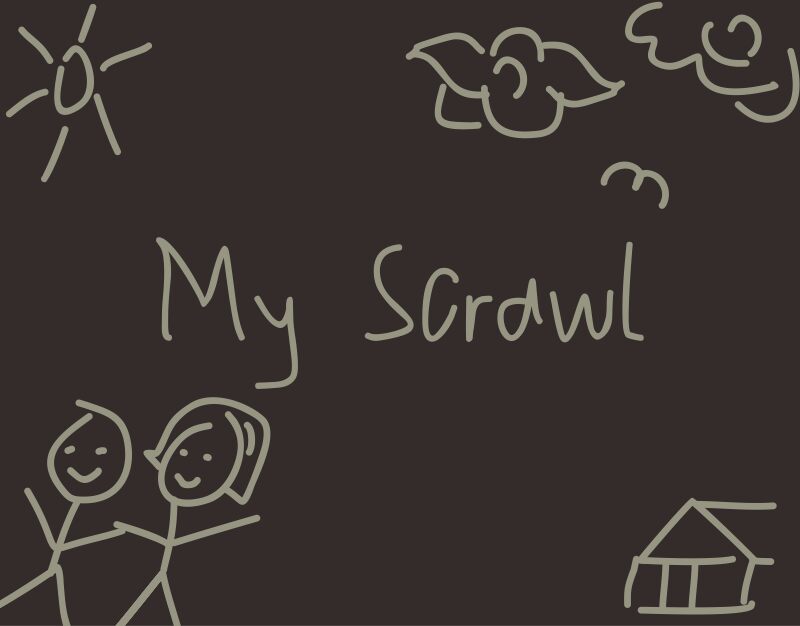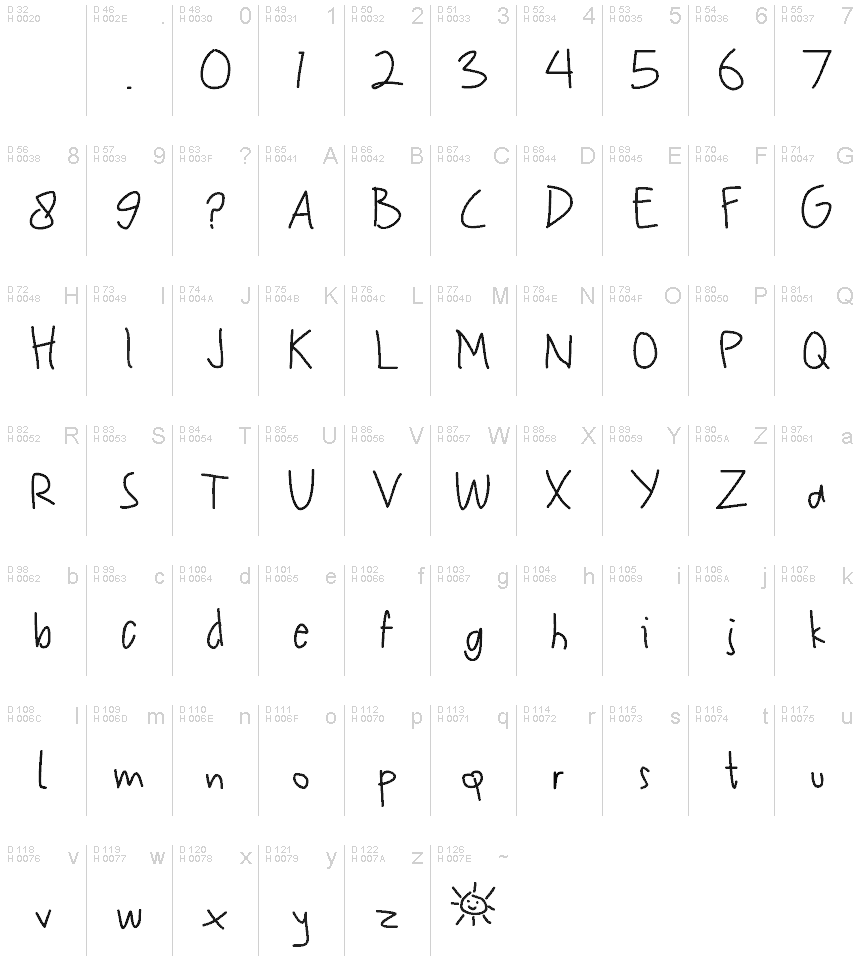
My Scrawl
My Scrawl, a captivating handwritten font crafted by designer Afiq Anggriawan, evokes a sense of authenticity and personality. With its organic, flowing strokes and a delicate, light weight, this font exudes a genuine, handcrafted aesthetic that appeals to the senses. The unique character shapes and natural variations lend an air of individuality, making each word and line appear as if meticulously penned by hand.
The versatility of My Scrawl shines through in its ability to seamlessly blend into a wide range of design contexts. Its casual, expressive qualities make it an excellent choice for branding, packaging, and editorial projects that aim to convey a personal, artisanal touch. Whether in headlines, body copy, or decorative elements, this font has the power to elevate the visual experience and connect with audiences on an emotional level.